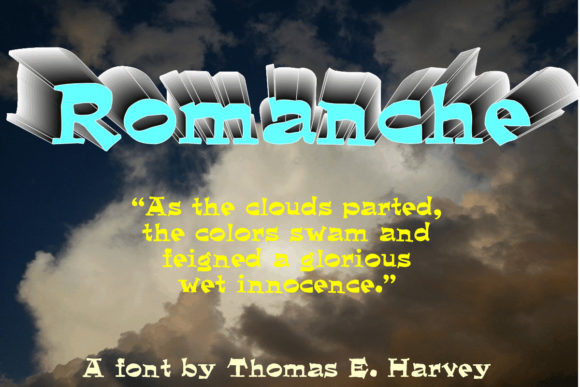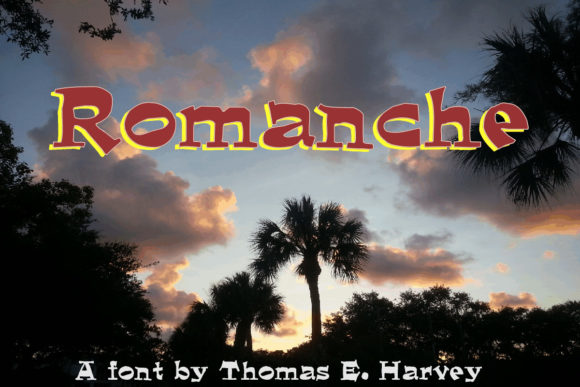
Romanche
Romanche: A Quirky and Unique Slab Serif Font
Romanche is a distinctive slab serif font that combines quirkiness with uniqueness. This typeface is designed to add character and elevate a wide range of design projects, making it an incredible asset to any font library.
Key Features of Romanche
• Quirky Design: Offers a playful and unconventional look that captures attention.
• Unique Style: Features distinctive letterforms that set it apart from typical fonts.
• Slab Serif Structure: Incorporates the characteristic thick, rectangular serifs typical of slab serif fonts.
• Versatile Application: Suitable for a wide range of projects, adding character and charm.
• Impactful Presence: Designed to make designs stand out with its unique aesthetic.
Ideal Uses for Romanche
Romanche’s unique characteristics make it particularly well-suited for:
• Branding and logo design
• Creative posters and advertisements
• Editorial layouts and headlines
• Book covers and title pages
• Web layouts and digital content
• Any project needing a quirky and unique touch
When incorporating Romanche into your designs, consider these tips:
• Use for headlines or short blocks of text to showcase its quirky and unique style
• Experiment with different sizes to highlight the font’s distinctive letterforms
• Utilize its unique character to create memorable and impactful designs
Romanche is an excellent choice for designers looking to add a quirky and unique slab serif font to their typographic toolkit. Its ability to enhance various design projects with its distinct aesthetic makes it stand out in the world of typography. Whether you’re working on logo designs, creating layouts for creative posters, or developing content that requires a touch of uniqueness, Romanche offers the perfect blend of style and individuality.
Furthermore, Romanche’s versatility allows it to shine in various contexts. From vintage-inspired designs with a modern twist to more contemporary layouts that need a touch of quirkiness, this font can elevate your projects. Its quirky yet unique style works particularly well in designs that require a thoughtful and engaging mood.
In conclusion, Romanche is a font that truly captures the essence of quirky creativity in typography. Its ability to work well in both minimalist projects and more elaborate layouts showcases its flexibility. For those looking to add a touch of unique charm to their work, Romanche can even enhance themed creations with its distinctive style. It’s an incredible asset to any font library, ready to elevate any creation with its charming character.